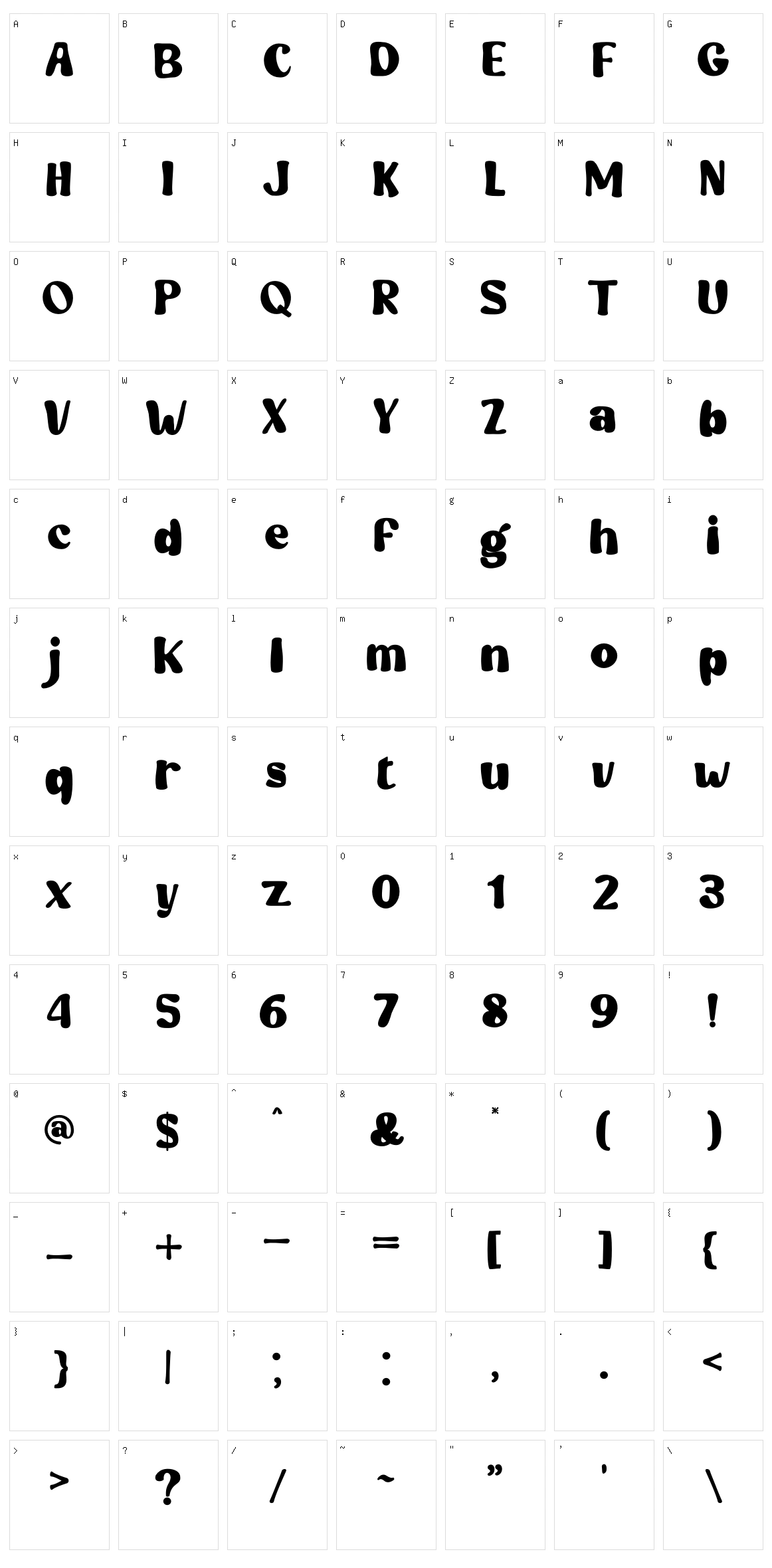
The free font Retro Side is carefully designed by Rvandtype, showcasing a thoughtful balance of creativity and usability and falls under the Groovy font style. When you download the ZIP file, it contains only 44.22 KB of font files, making it lightweight and quick to download. Please review the license details below to understand permitted usage and distribution rights. If license information is not available, we recommend using this font for personal projects only or contacting the author directly for commercial usage permissions.